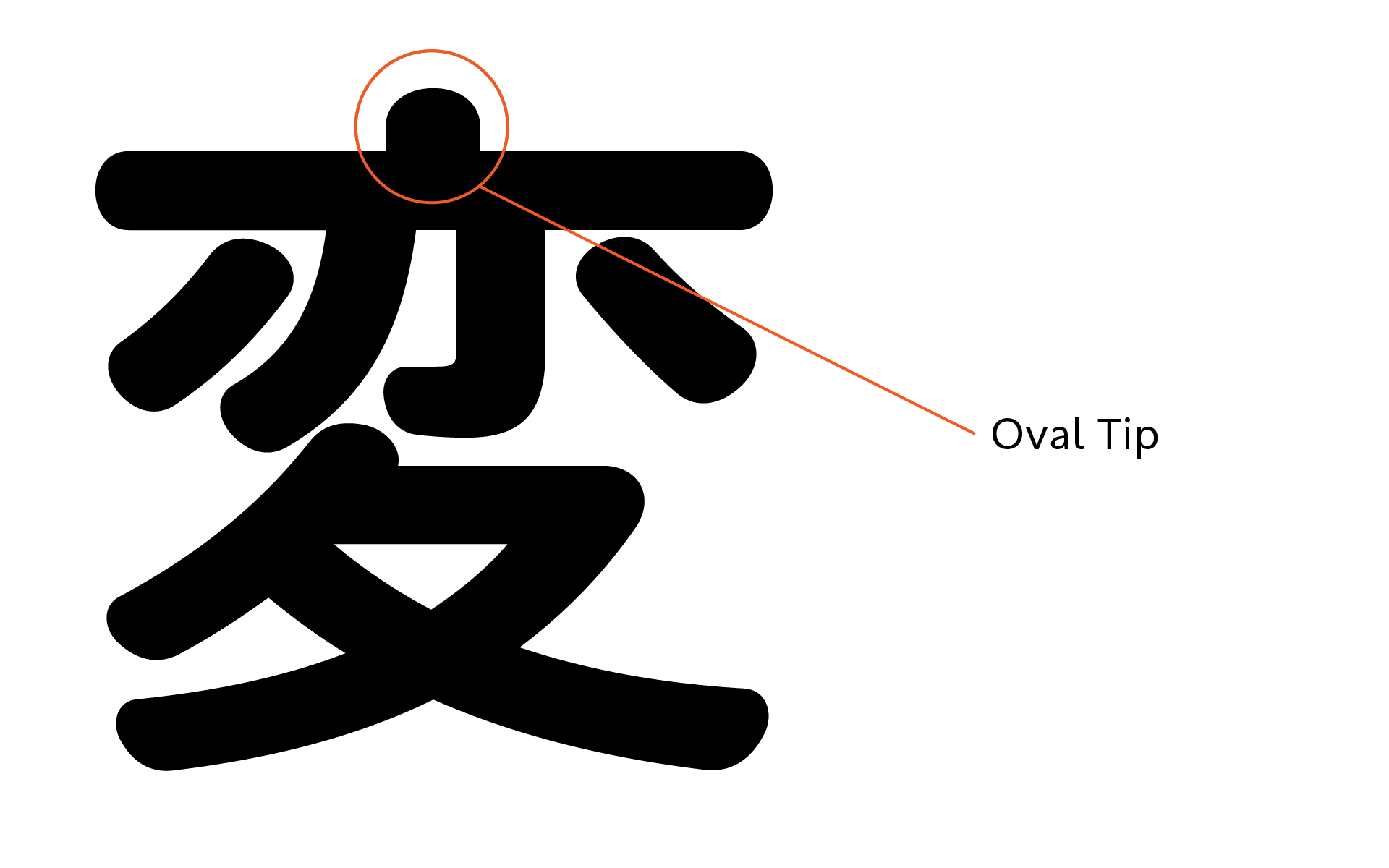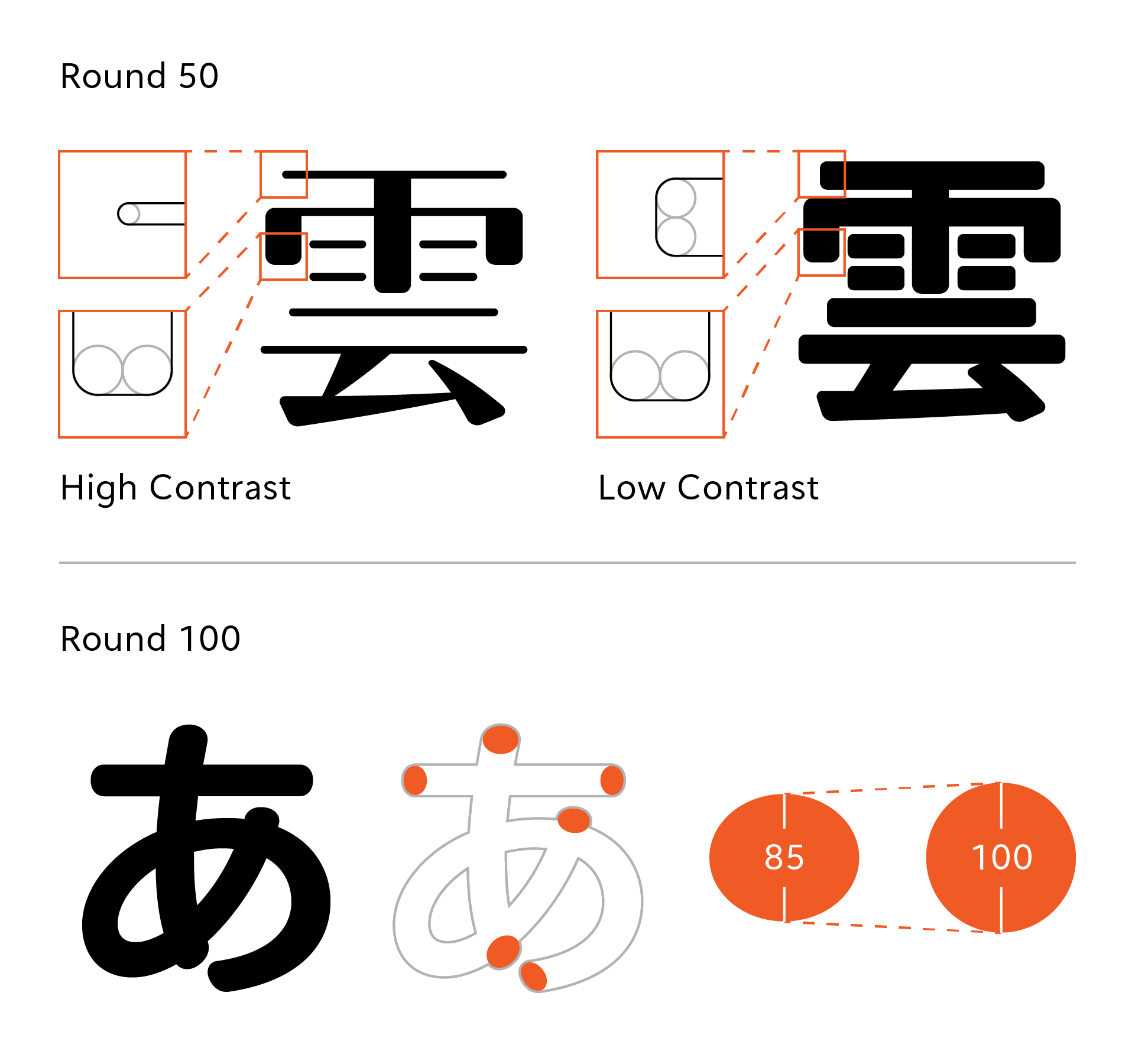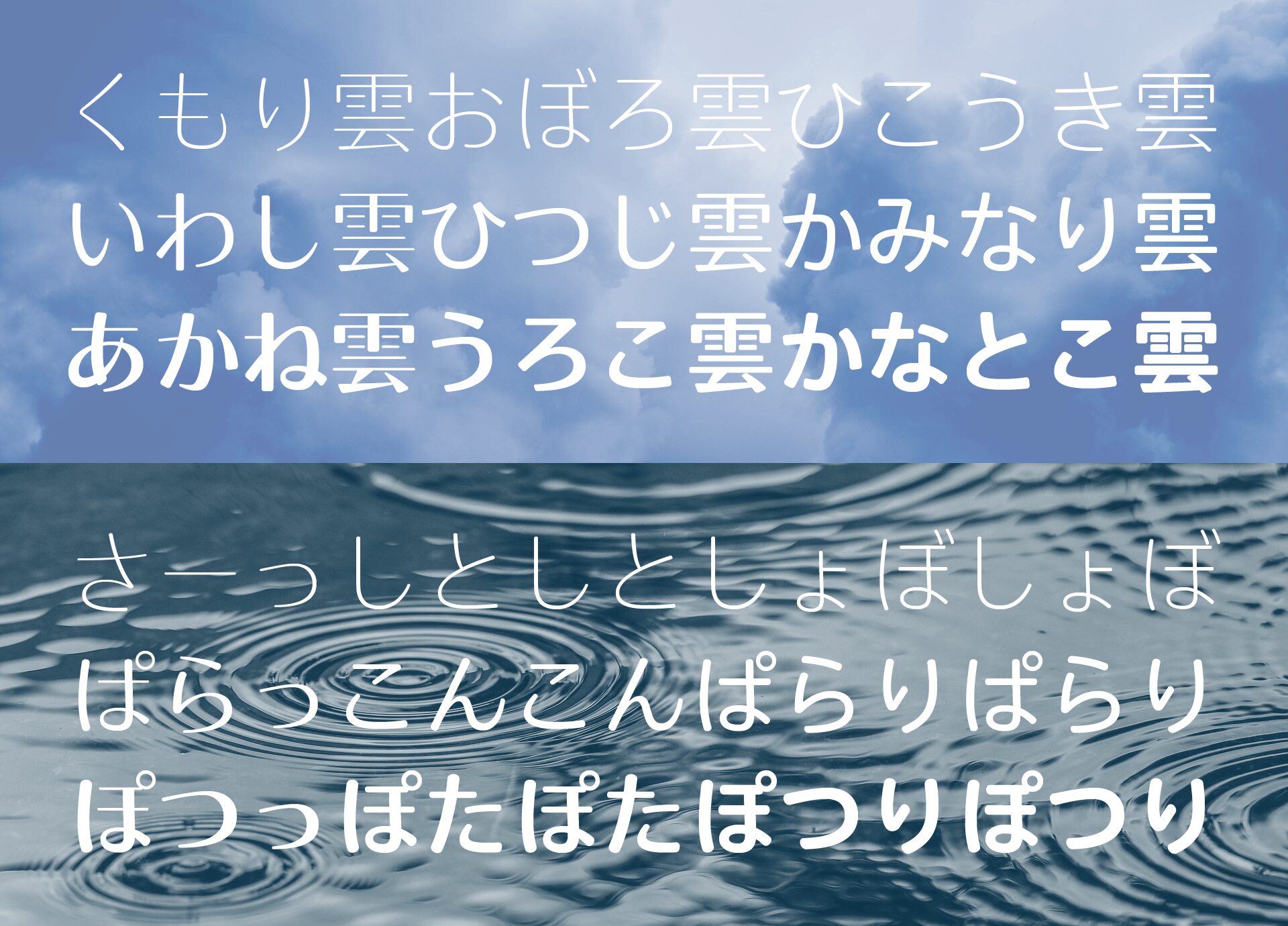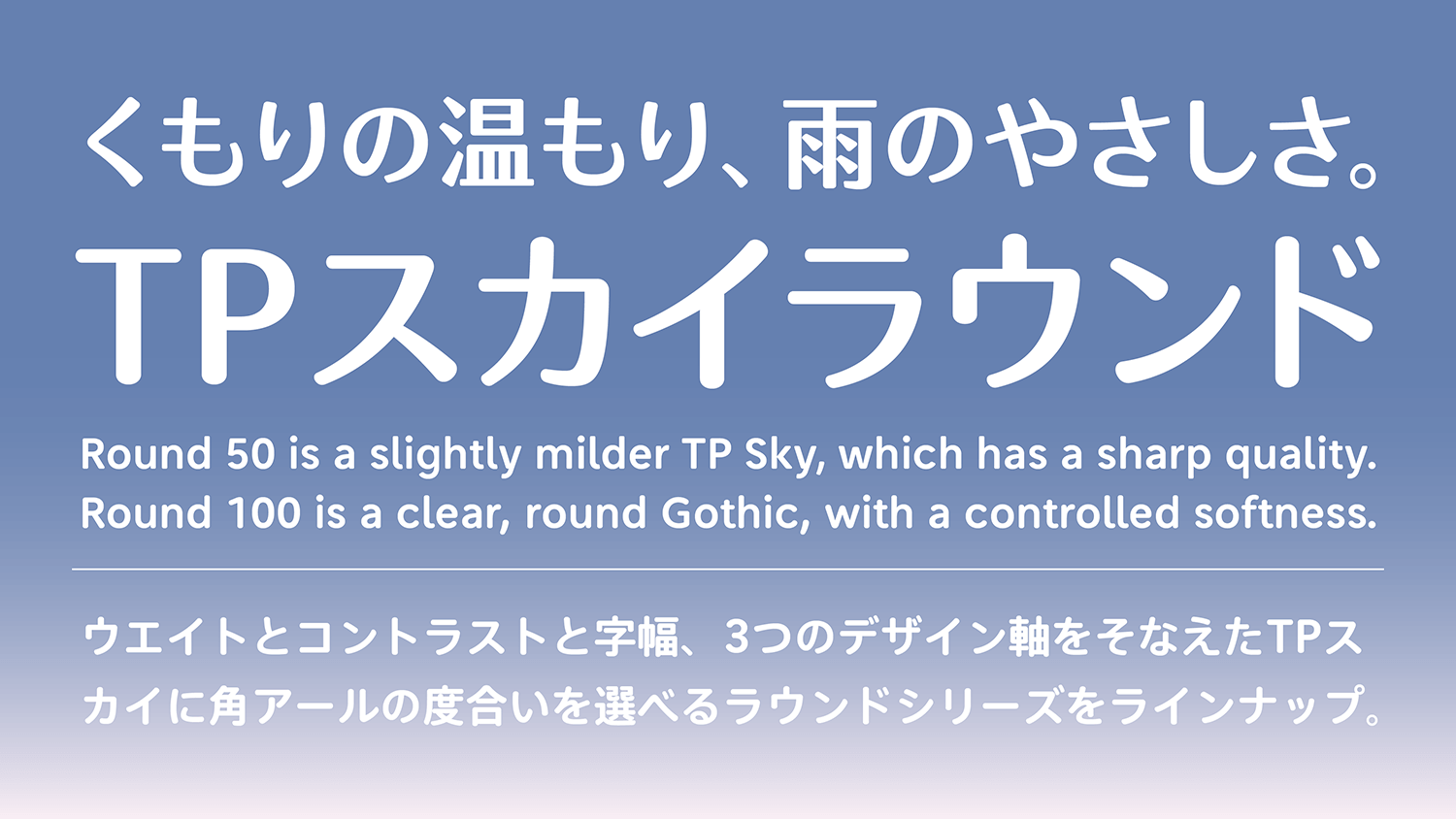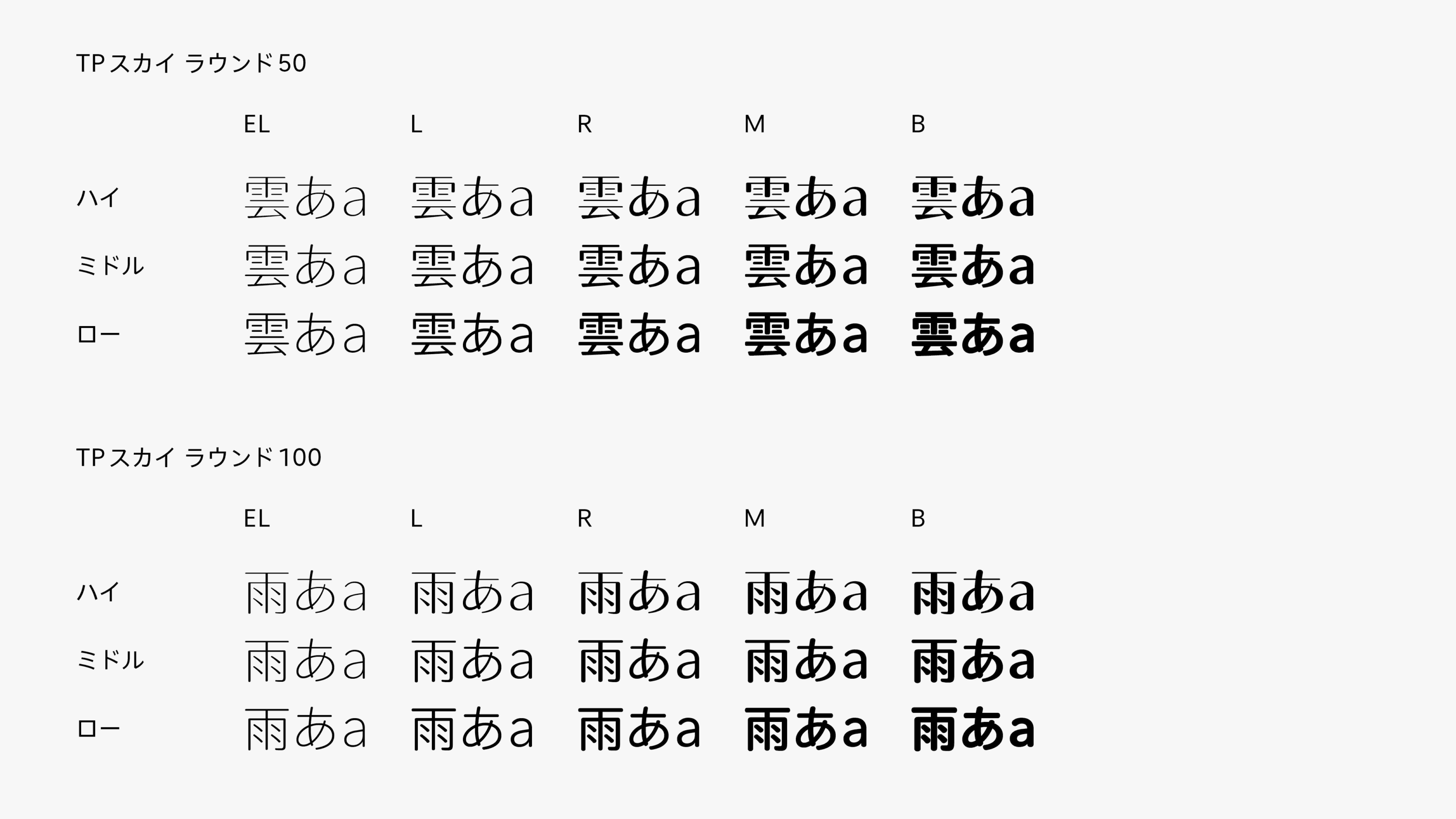
TP Sky Round incorporates the three design axes of weight, contrast, and character width. In addition to enhanced visibility in consideration of stability in vertical typesetting, familiarity and ease of use are improved by rounding the stroke tips.
Features
Choose the roundness of the corners.
TP Sky is a genuine font family that is suited to screens. The sans-serif strokes, which tend to be monotonous, are modulated to produce rich expression. This font family, which allows users to choose the roundness of the corners, boosts the TP Sky line-up of fonts. Round 50 is a slightly milder TP Sky, which has a sharp quality. Round 100 is a clear, round Gothic, with a controlled softness. All 30 fonts in the Round series, which rapidly spread the use of TP Sky in fields, such as food, fashion, cosmetics and entertainment, allow designers to select the ideal font depending on the purpose and use.
Selectable round series.
TP Sky Round 50 changes the radius of the rounded corners according to weight, and aims to unify the visual balance and impression to achieve the same roundness no matter the weight. Giving the Low Contrast tips the roundness of two perfect circles and High Contrast tips the roundness of one. TP Sky Round use of an 85% flat circle. The attributes of the oval tips are in the stroke direction, as opposed to a perfect circle and its strong, static appearance. The tips are the ideal shape and expression for drawing out the efficiency of a modulated sans-serif font with a brushstroke-like quality. After using software to process the font, we adjusted it manually.
Round gothic with less sweet taste.
TP Sky design philosophy of a sans-serif font that is compact and clear with a high purity. With “sky” as the base concept, we assigned the metaphorical keywords of “cloudy” to Sky Round 50 and “rainy” to Sky Round 100. We created the TP Sky Round family to display various expressions through the Round 50 and Round 100 fonts, and their weights and contrast levels, as we thought of how the sky looks as it changes from one moment to the next.